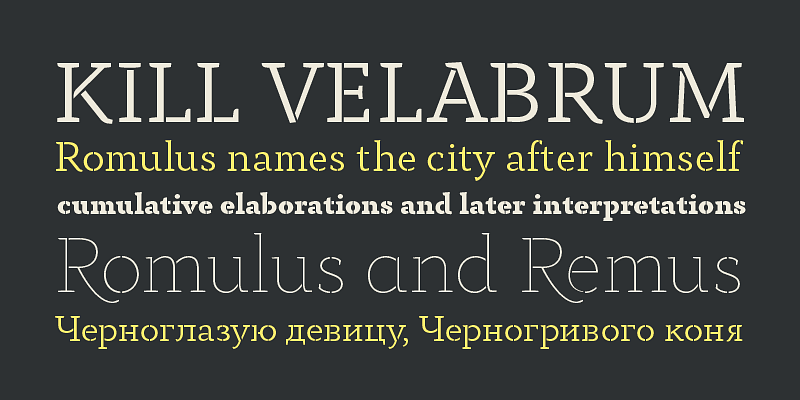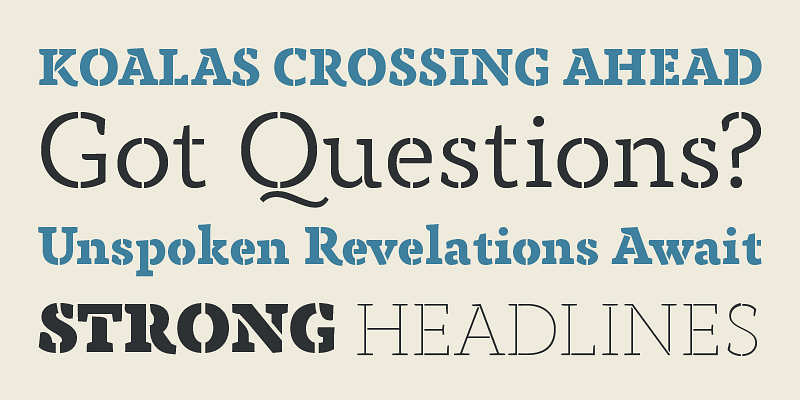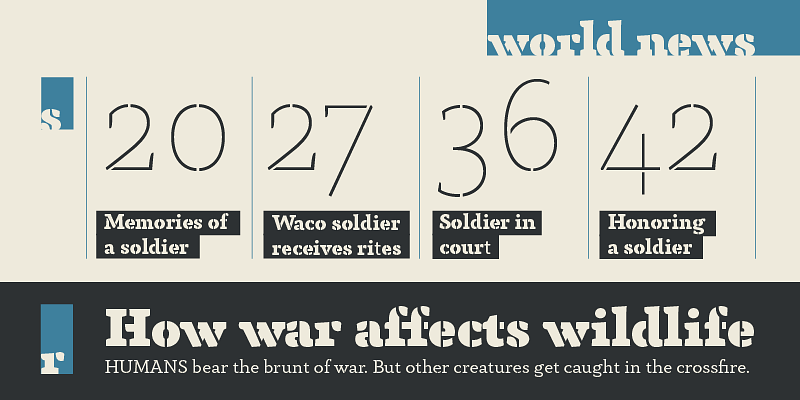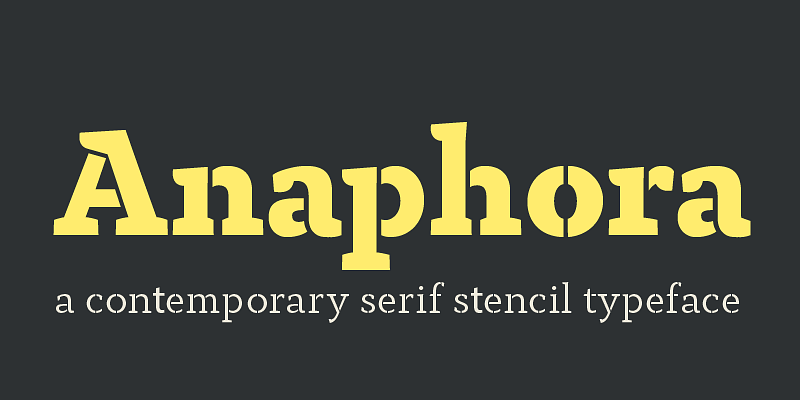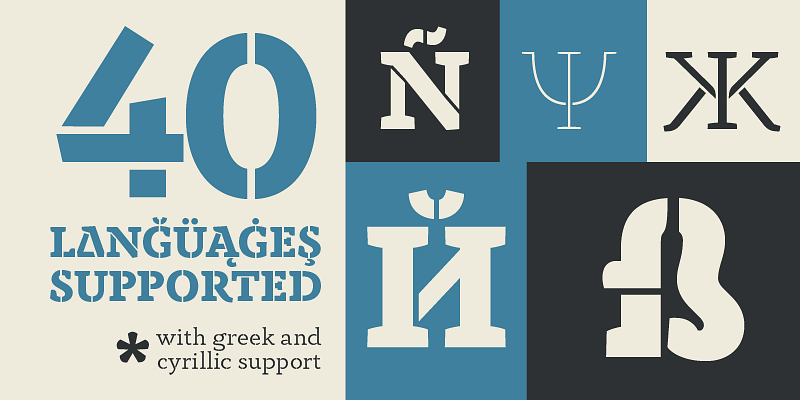
Anaphora is a contemporary serif typeface designed by Francesco Canovaro with Cosimo Lorenzo Pancini and Andrea Tartarelli. It features nine weights, from thin to fat, each with true italics style, for a full range of editorial and advertising uses. Its wide counters and low x-height make it pleasant and readable at text sizes, while the uncommon shapes make it strong and recognizable when used in display sizes. Four additional stencil weights provide options for fancy titling and logo creation. Anaphora features an extended character set that covers over forty languages using the latin alphabet, as well as Greek and Russian Cyrillic. Open type features include small caps, four sets of figures, fractions, superior & inferior figures, alternate forms and discretionary ligatures.